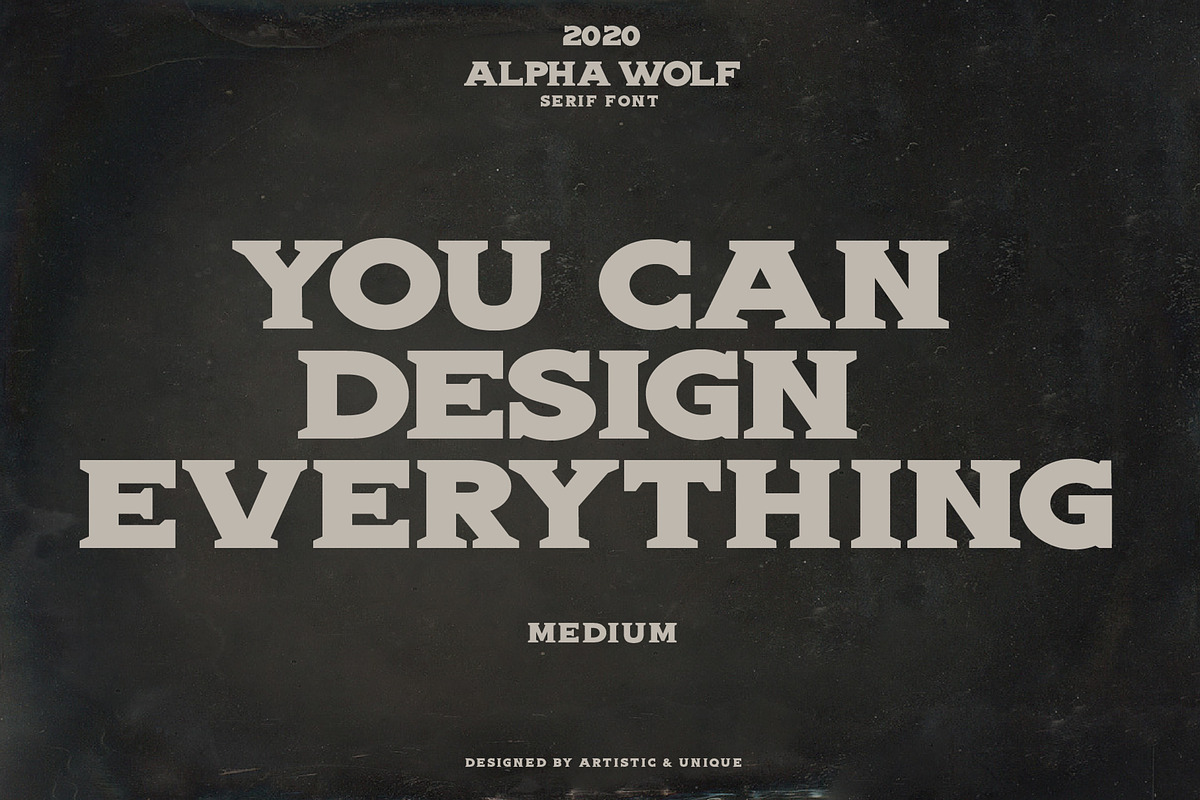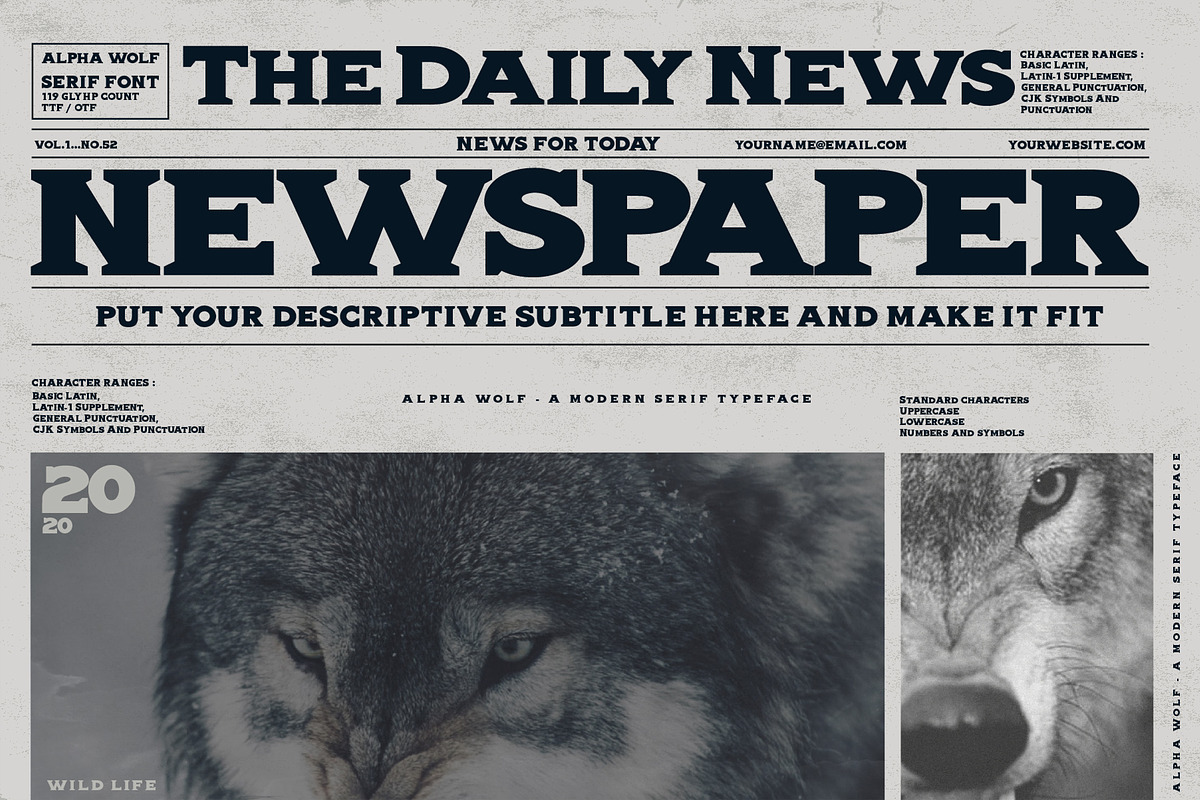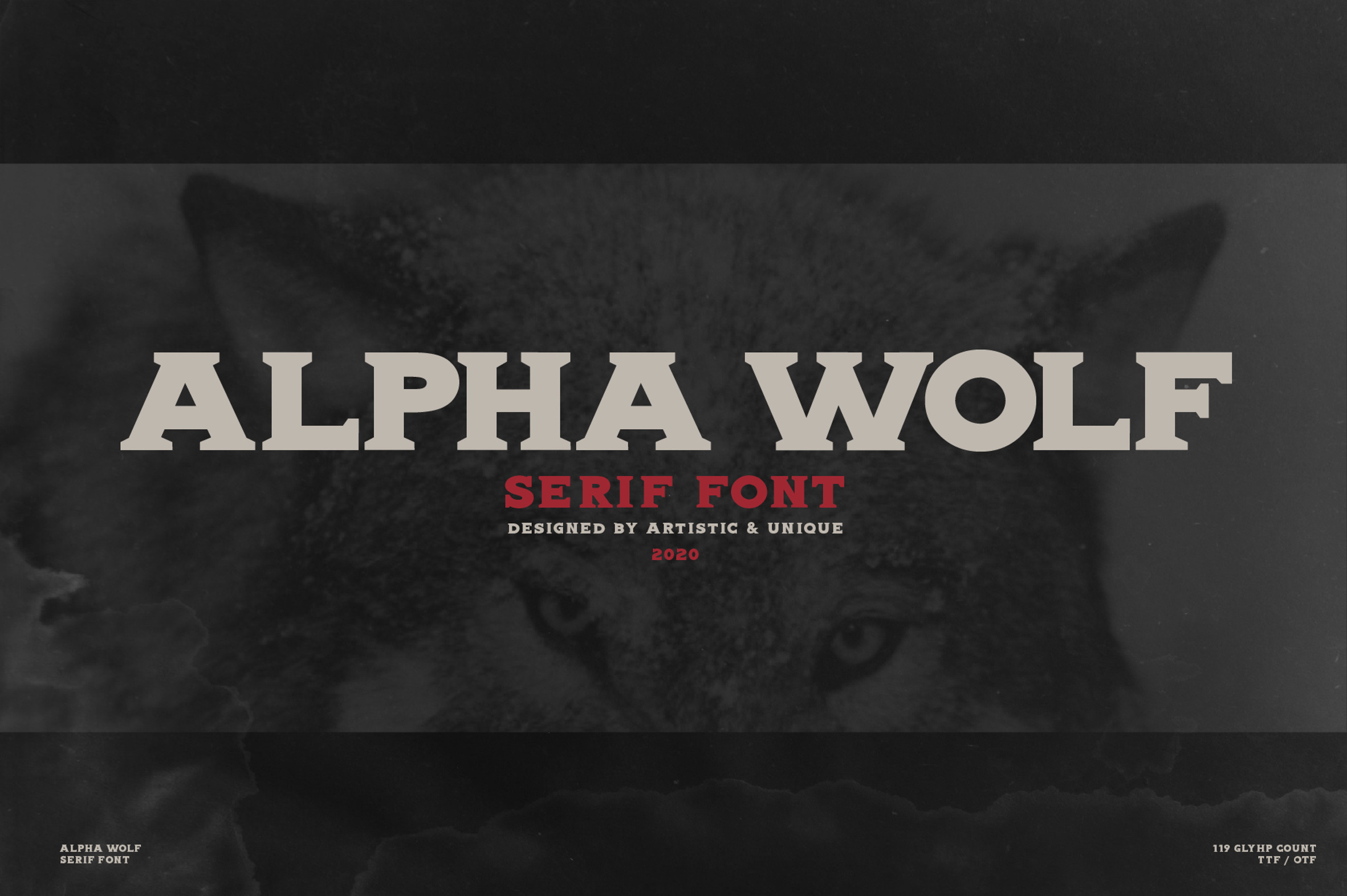
Alpha wolf - Serif font
Alpha wolf-Serif font.It is dominant and masculine due to its characteristic structure. Just like the character of the alpha wolf.
This feature is suitable for accent titles, subtitles and introduction captions.
In addition to this main feature, it will help you create your branding, logo, packaging, newspaper and magazine designs, main headlines, posters, publishing, printing and similar creative projects.
Alpha wolf serif font allows you to create beautiful modern or vintage looking designs.
With this font you can create your unique designs.